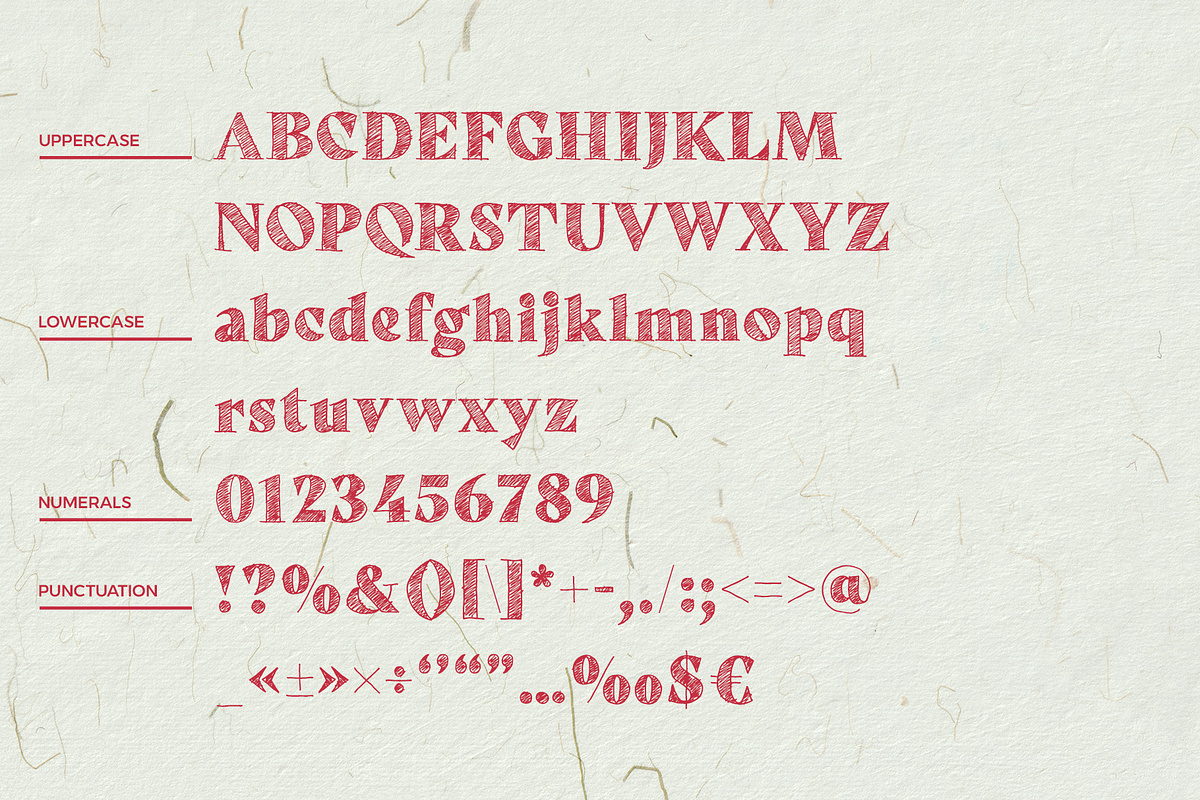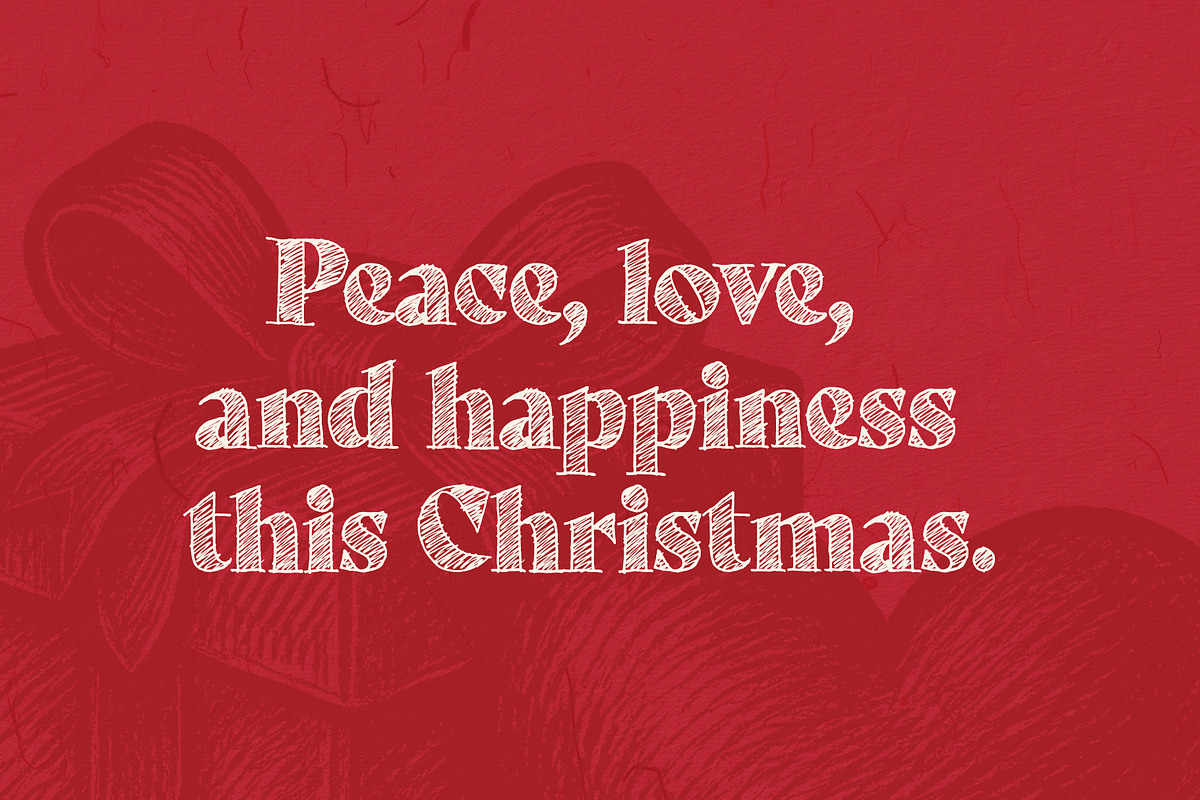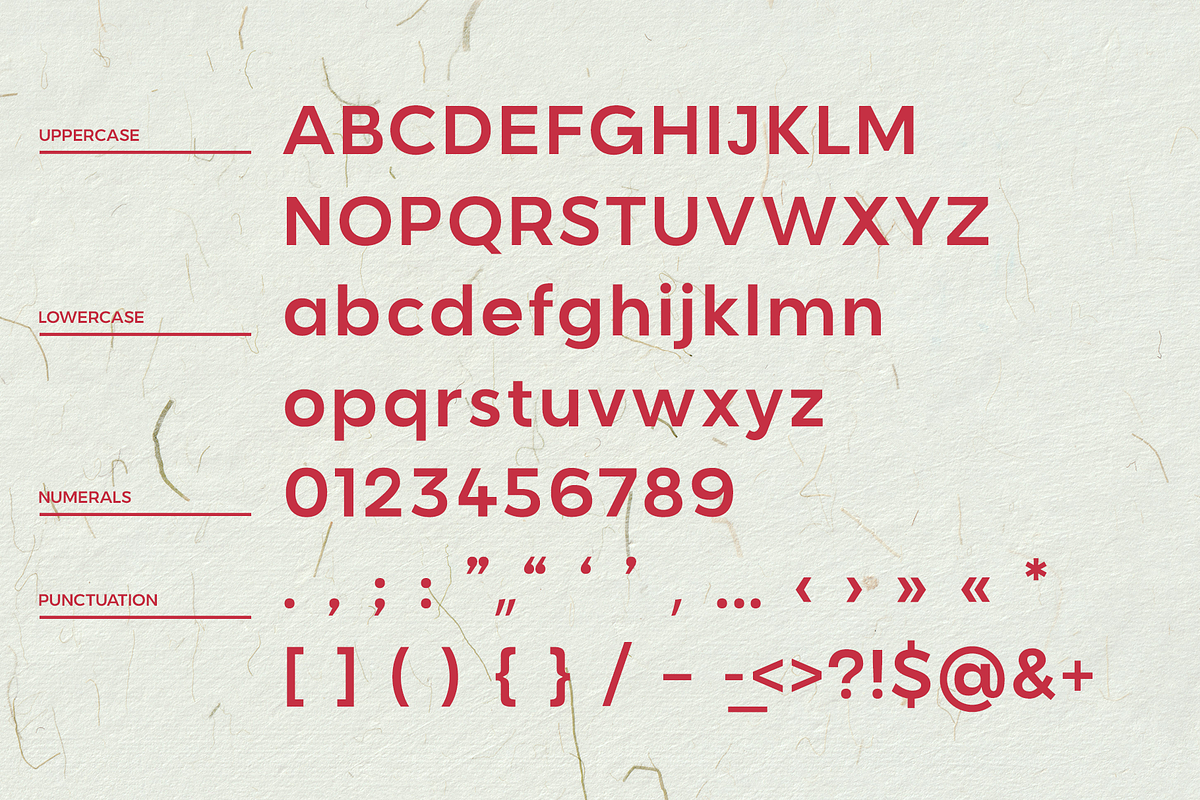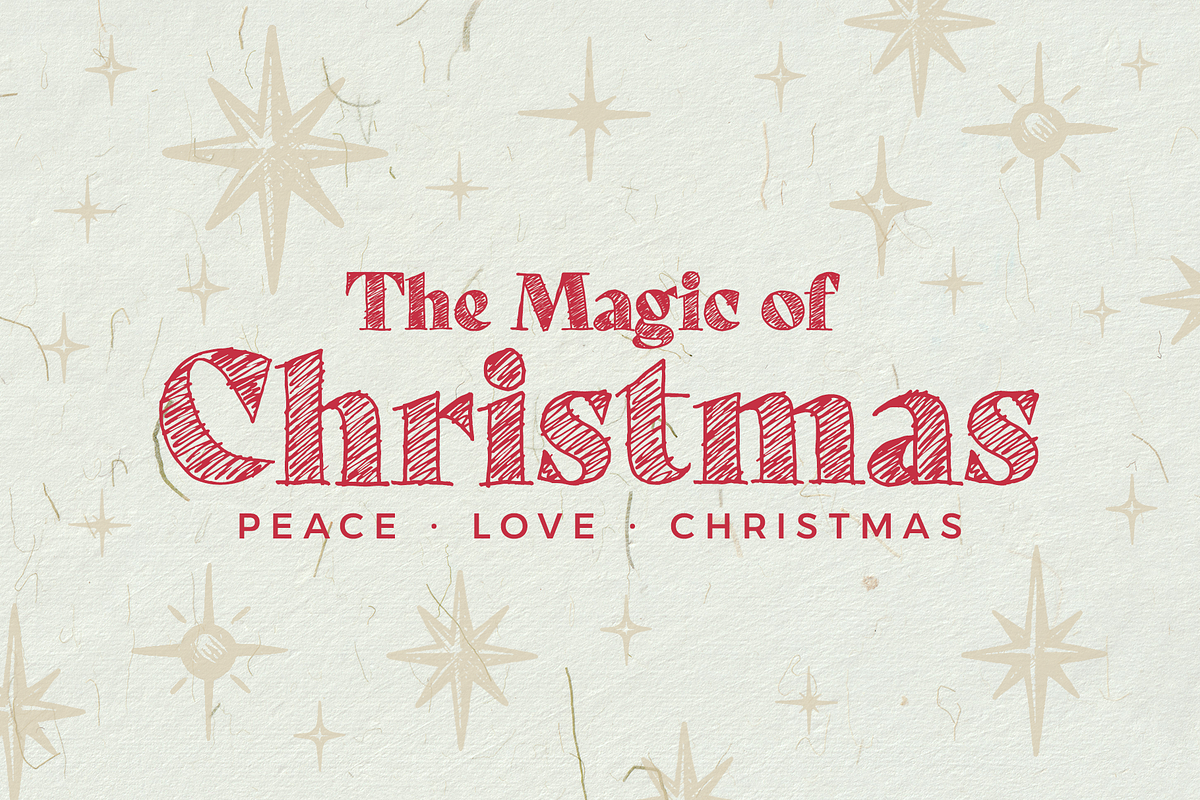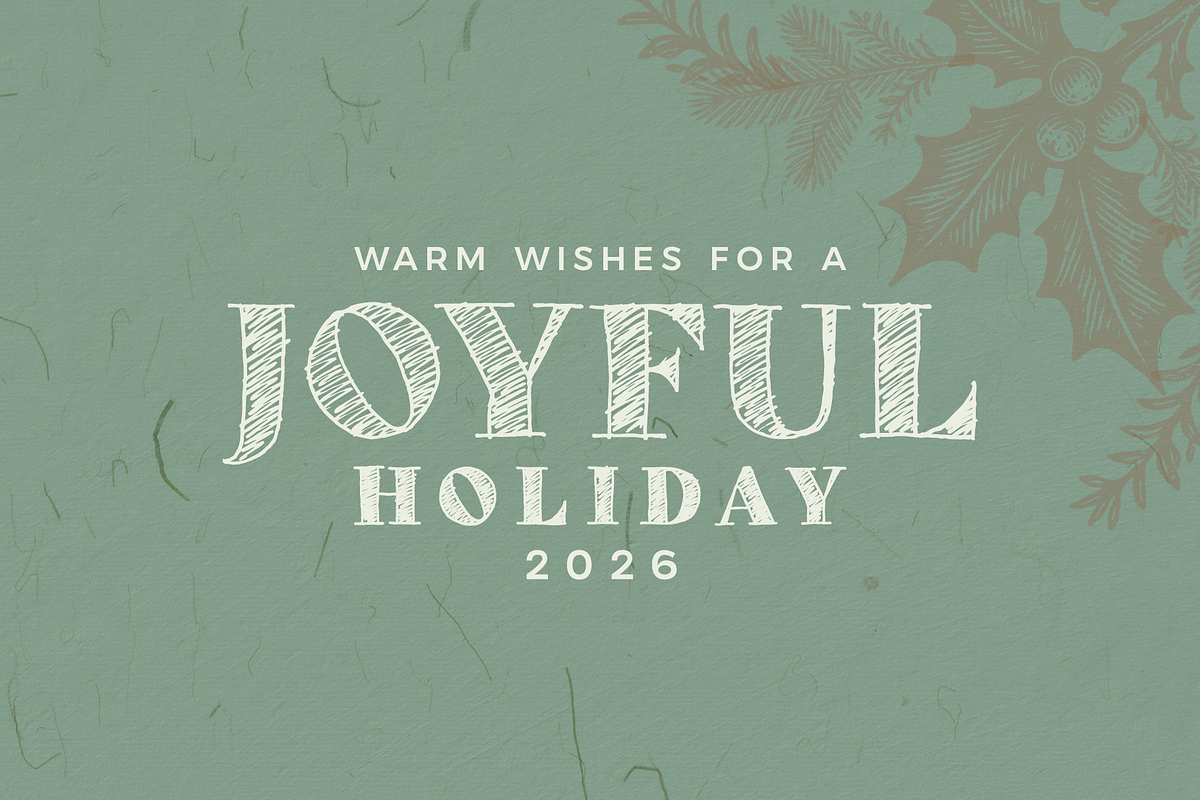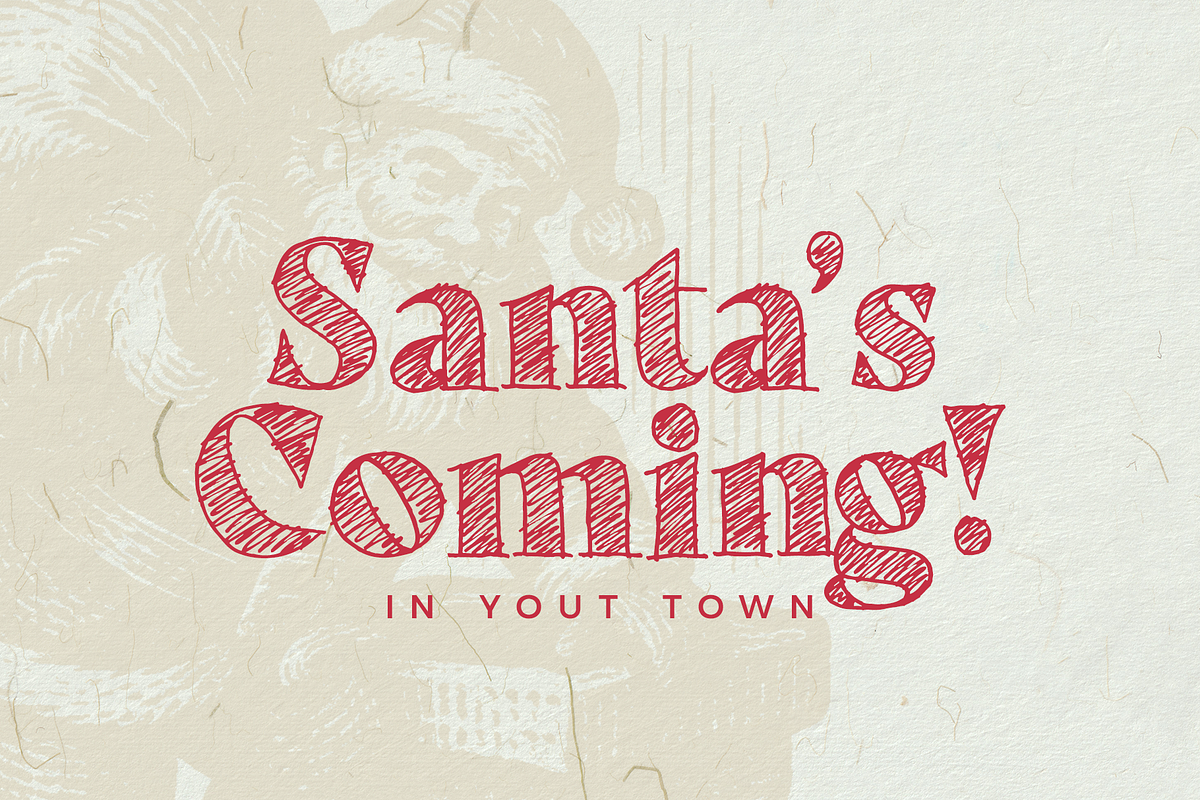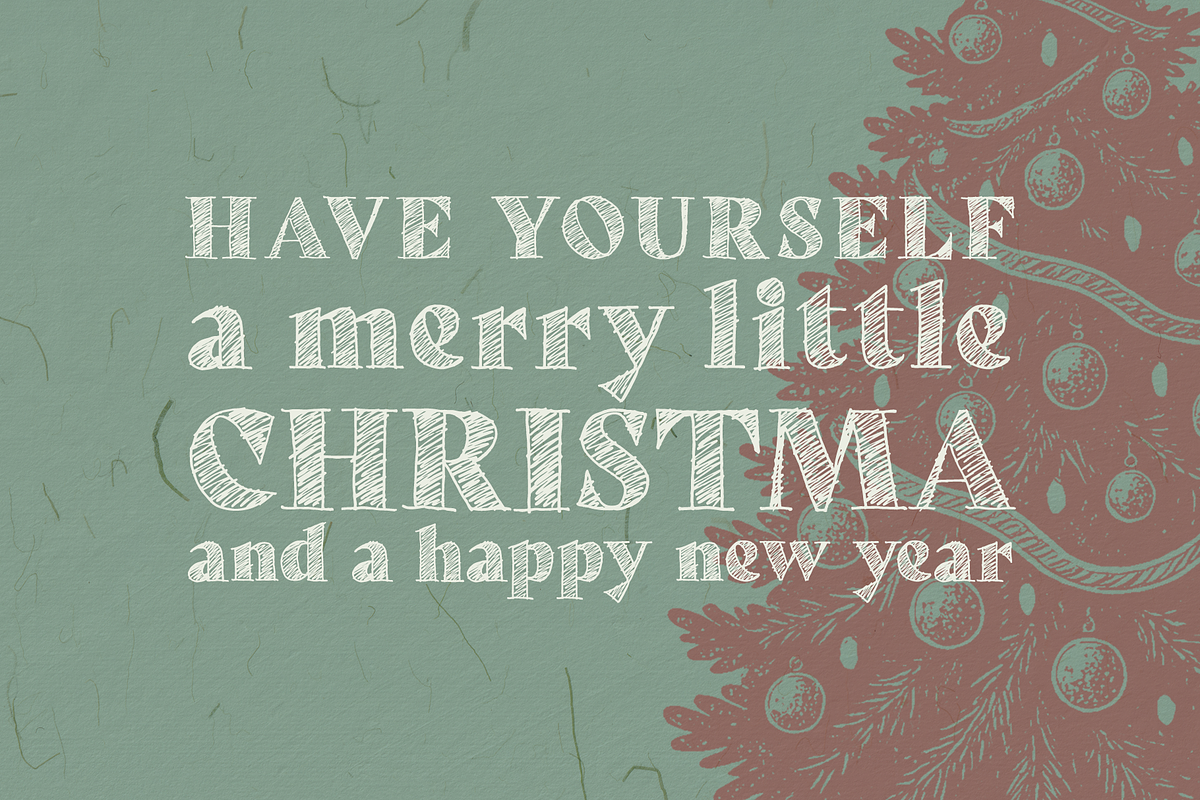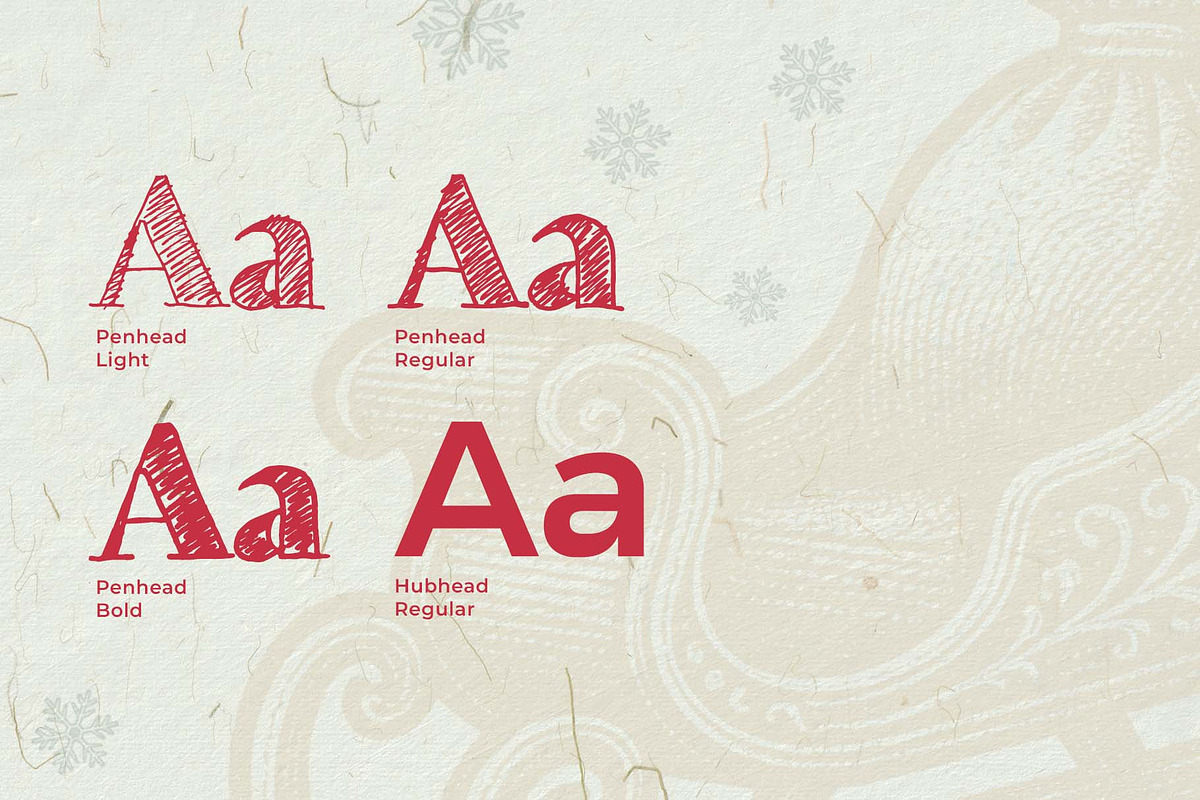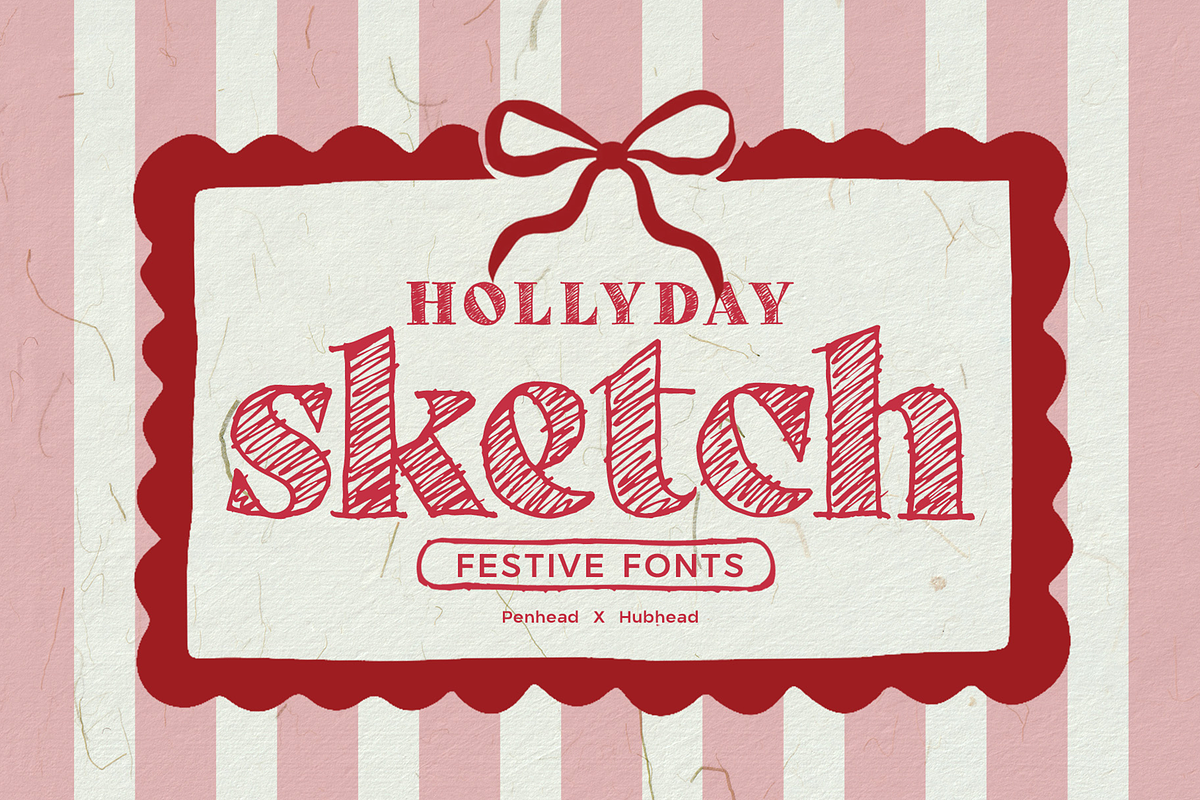
Holiday Sketch Font Duo
Holiday Sketch Font Duo brings together two fonts made to work as one, a hand sketched display font paired with a clean sans serif that supports it perfectly. Together they create a warm, festive look with a personal, hand drawn touch, built for Christmas cards, holiday branding, gift tags, packaging, invitations and seasonal social media graphics.
The sketch font carries the character and charm of hand lettering, ideal for headlines and statement text, while the sans serif keeps body text clean and easy to read, so your designs stay balanced and professional even with a playful main font. Use them together for a complete holiday look, or mix each font into your own projects.
- Penhead Light, Regular, Bold
- Hubhead
- Multilingual character support